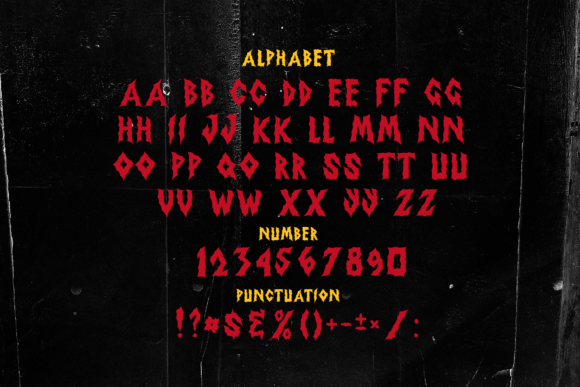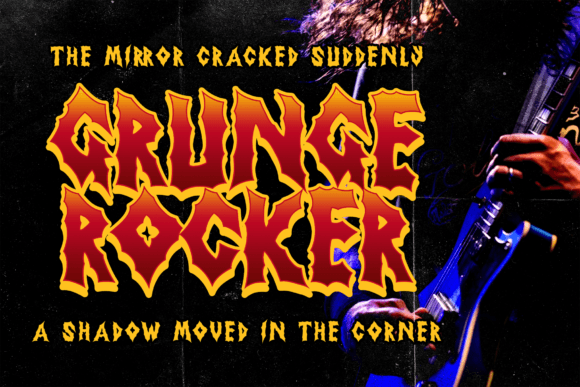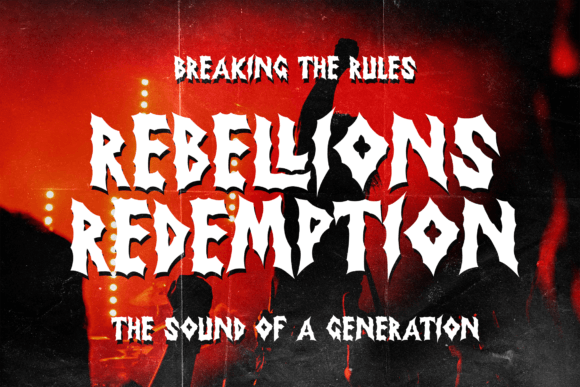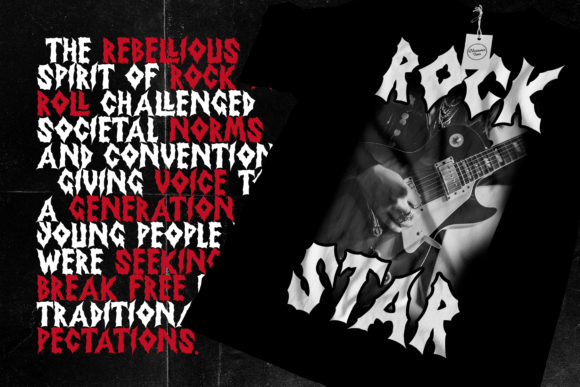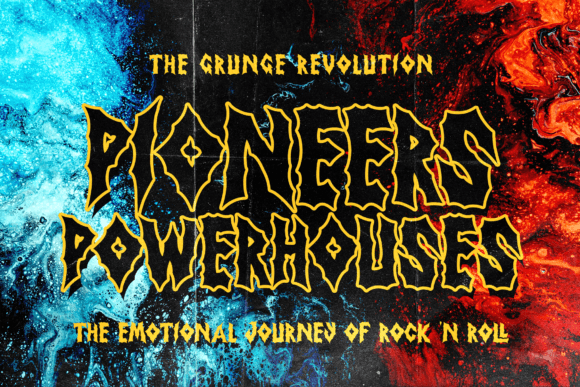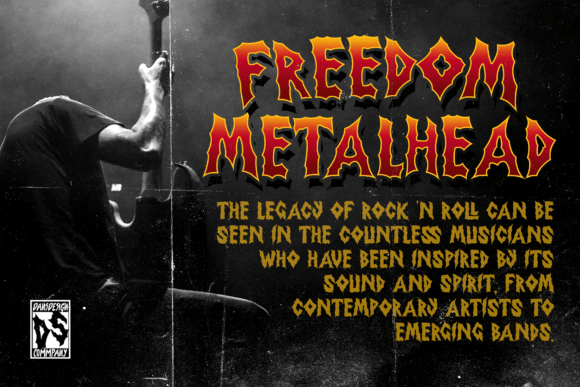
Introduction to Riotspike Crossbones Font
Riotspike Crossbones is a bold and edgy street art-inspired font with a Y2K vibe.
It features sharp, angular blackletter-style letters, perfect for giving a rebellious, urban feel to designs This font combines graffiti and gothic elements, making it ideal for projects that need a strong and striking look.
Key Features of Riotspike Crossbones Font
Why Choose Riotspike Crossbones Font?